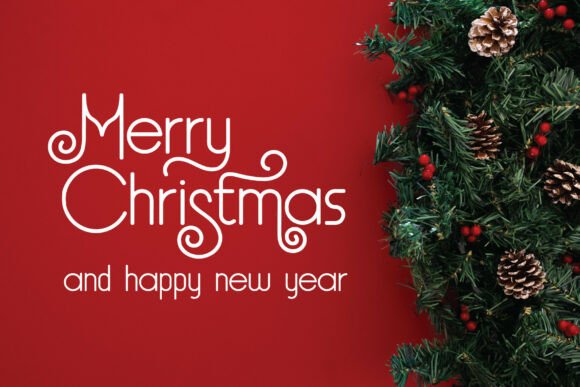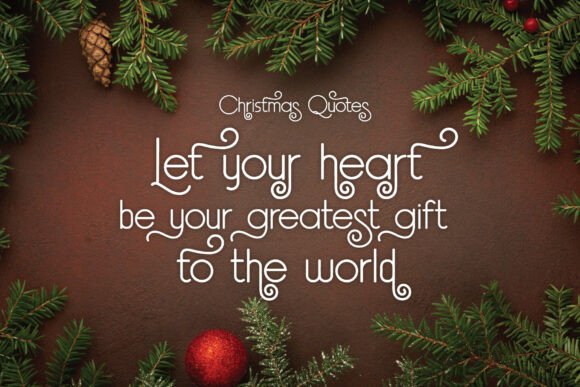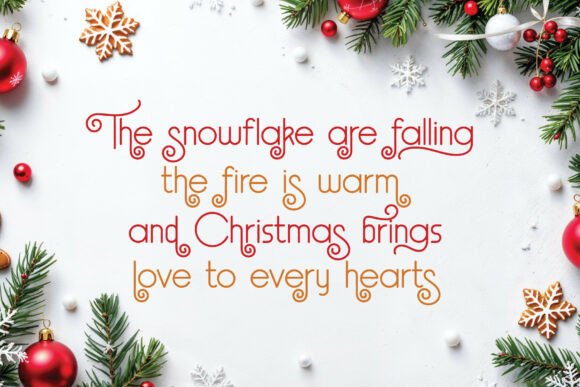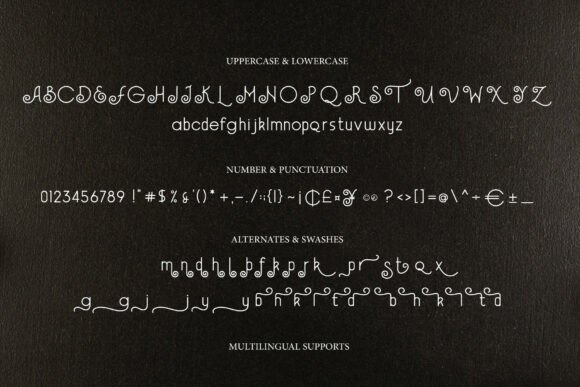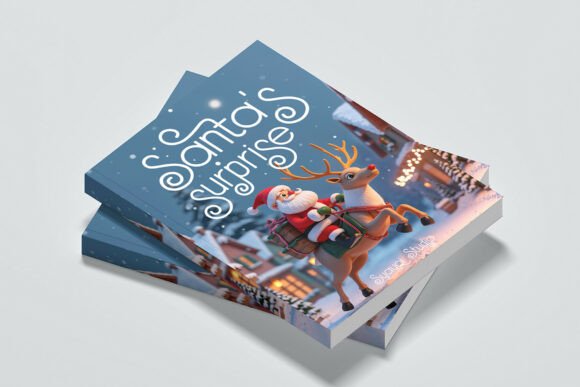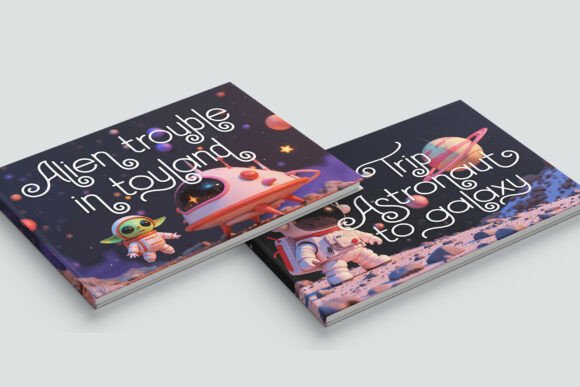
Introduction to Dreamlight Winter Font
There’s something magical about the winter season, isn’t there? The snowflakes gently falling, the twinkling lights, and the warmth of cozy firesides – it’s the perfect time to get creative. As designers, we’re always on the lookout for the perfect font to capture the essence of the holiday season, and that’s where the Dreamlight Winter Font comes in.
This elegant and versatile font is a game-changer for any design project that evokes the magic of Christmas and the chill of winter. With its delicate strokes and graceful curves, it’s perfect for adding a touch of warmth and elegance to your creative project. Whether you’re working on a festive marketing campaign or a personalized invitation, the Dreamlight Winter Font is a valuable design resource that will elevate your typography and make your designs stand out.
What sets the Dreamlight Winter Font apart is its high-quality design and wide range of alternates, making it a free download that’s hard to resist. Plus, with a transparent background, you can easily layer it over your design without any hassle. It’s the perfect addition to any design project, and we’re excited to dive deeper into what makes this font so special.
Dreamlight Winter Font
- Unique, hand-drawn design perfect for creative projects requiring a touch of winter magic.
- Comes with a transparent background, allowing for seamless integration into any design.
- High-quality font with crisp, clear characters ideal for use in various design applications.
- Perfect for adding a touch of winter wonder to holiday-themed designs, invitations, and greeting cards.
Honest Review: Dreamlight Winter Font
I recently stumbled upon the Dreamlight Winter Font while searching for a design resource to enhance my creative project. I must say, I’m impressed with what I found.
- The Dreamlight Winter Font has a unique and elegant design that immediately caught my attention. Its high-quality glyphs make it perfect for use in various creative projects, especially those with a winter or festive theme.
While the Dreamlight Winter Font is a great addition to any design collection, I did encounter a few limitations. The font is not as versatile as some other high-quality fonts I’ve used, and it may not be the best choice for projects that require a more modern or bold aesthetic.
Overall, I’m pleased with the Dreamlight Winter Font, and I think it’s a valuable addition to any designer’s toolkit. With a little creativity, it can add a touch of elegance and sophistication to any project.
To get the most out of the Dreamlight Winter Font, use it in combination with other design elements, such as snowflakes, pinecones, or holly leaves. Experiment with different font sizes, styles, and colors to create a unique and eye-catching design.
The Dreamlight Winter Font is ideal for winter-themed designs, such as holiday cards, invitations, and social media posts. You can also use it for creative projects, such as graphic novels, comics, or children’s books.